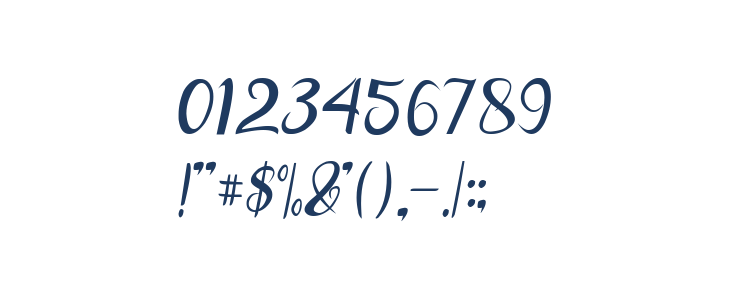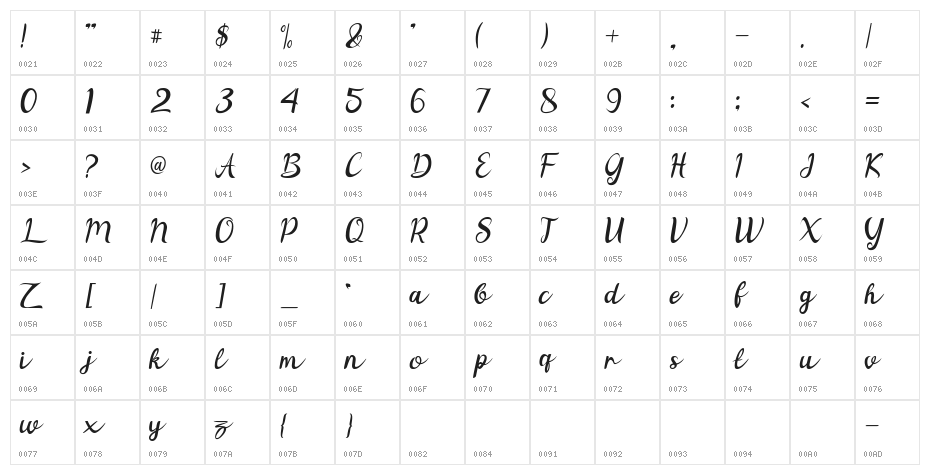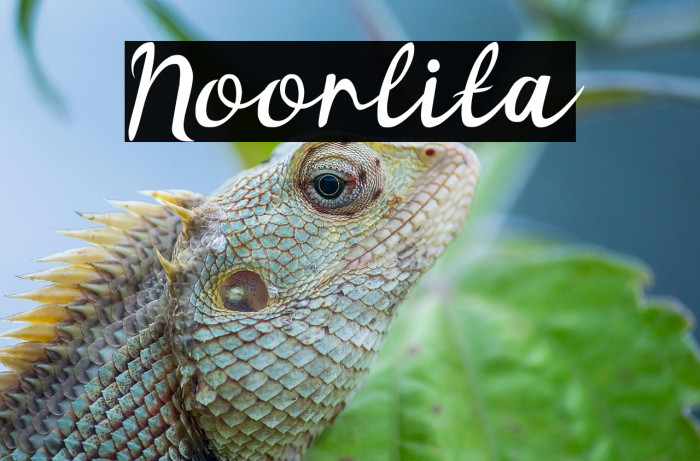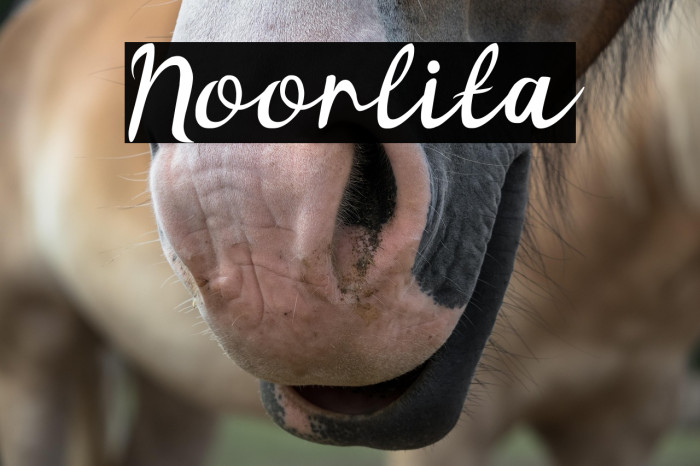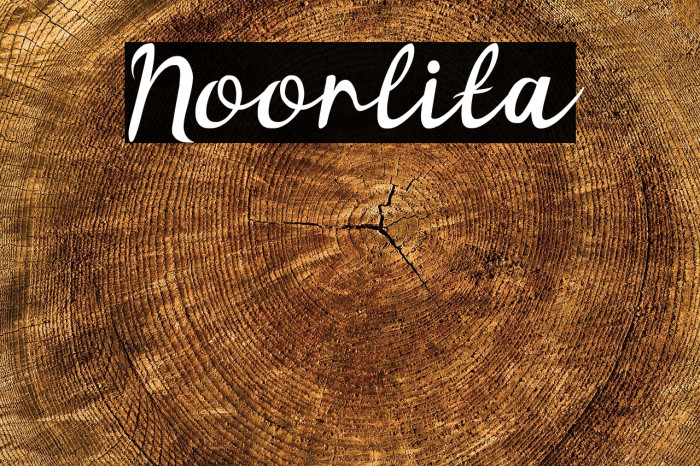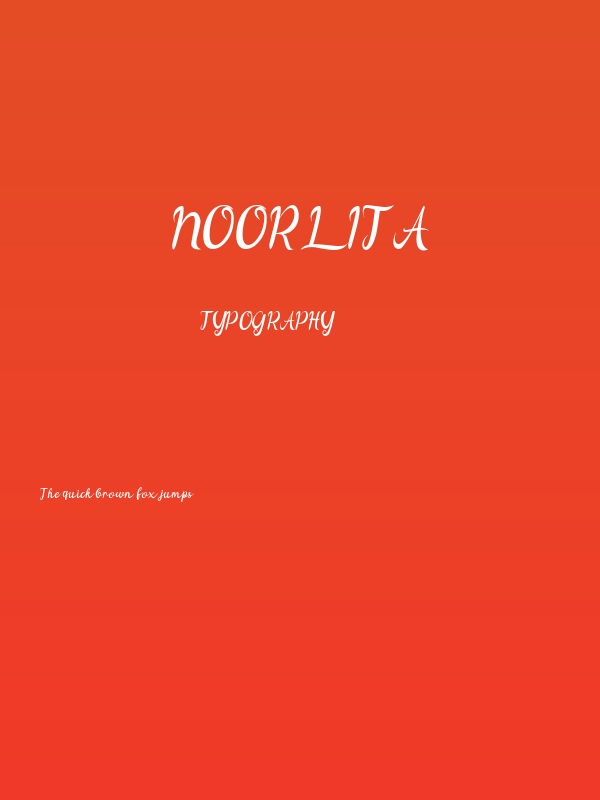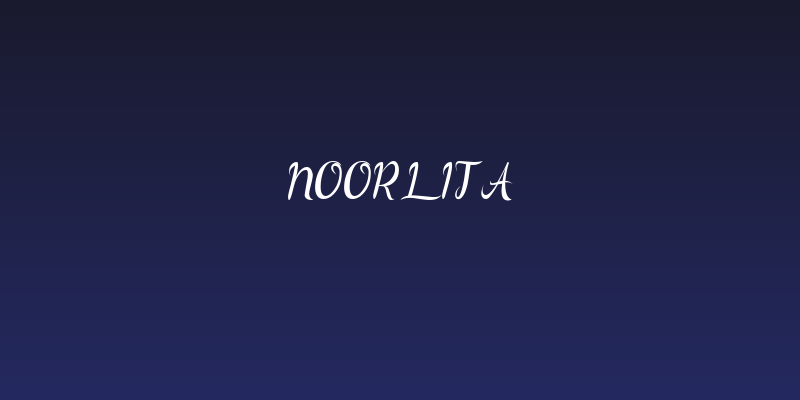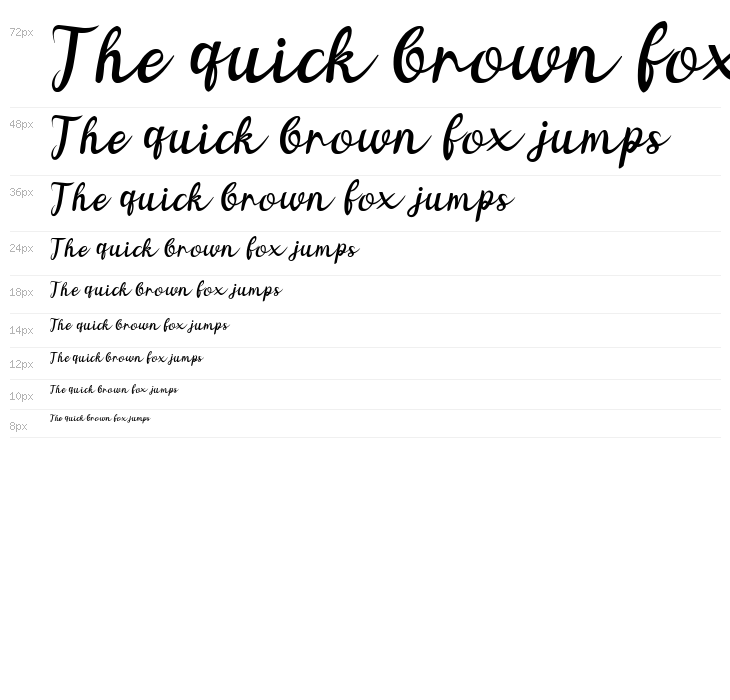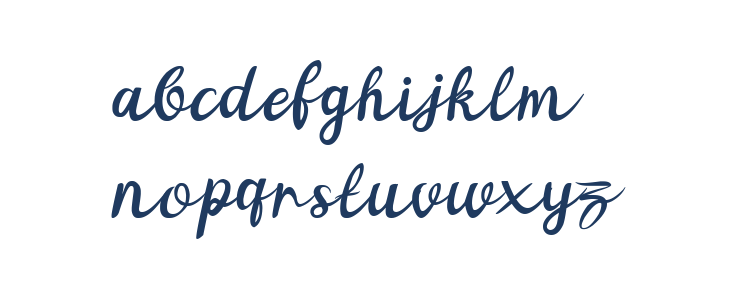
Noorlita Font
Noorlita Description
This font exudes elegance and fluidity, characterized by its cursive script style. The letters are interconnected with smooth, flowing strokes that mimic the natural handwriting of a skilled calligrapher. The uppercase letters are slightly more ornate, with subtle flourishes that add a touch of sophistication. The lowercase letters maintain a consistent rhythm and are easy to read, making them suitable for both formal and informal contexts. The numerals are clear and distinct, while the special characters blend seamlessly with the overall style. This font is perfect for projects that require a personal, artistic touch.
| Overall Style | Elegant, Artistic |
| Use Case | Headlines, Invitations, Artistic projects |
| Proposed Projects | Ideal for wedding invitations, greeting cards, personal branding, and artistic projects. |